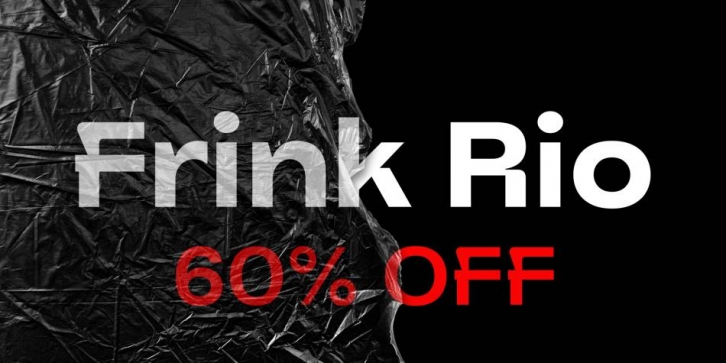
Frink Rio is a sans serif font family. This typeface has eighteen styles and was published by Brenners Template.
Frink Rio Modren Grotesk Font Family
It has evolved to converge wider and more trendy design needs. By designing the thin style vertical stem value as 10pt, the contrast between individual styles is ensured. Great care has been taken to ensure that the characteristics of individual Glyphs are well reflected in the each style. Extended Cyrillic language support will help make this font family more universal. And the support of various OpenType Features will respond to the designer’s coverage in a variety of ways.
Some Features
- 9Weights, 18Styles
- Italics
- 831Glyphs
- Extended Latin, Extended Cyrillic Language Support
OpenType Features
- Ligatures - fi, fl
- Small Caps (from lowercases)
- Ordinals (1st. 2nd. 3rd, 4~9th)
- Oldstyle Figures
- Tabular Figures
- Fractions
- Scientific Inferiors
- Superscrpt (lowercases. numbers)
· Frink Rio Thin
· Frink Rio Thin Italic
· Frink Rio Extra Light
· Frink Rio Extra Light Italic
· Frink Rio Light
· Frink Rio Light Italic
· Frink Rio Regular
· Frink Rio Italic
· Frink Rio Medium
· Frink Rio Medium Italic
· Frink Rio Semi Bold
· Frink Rio Semi Bold Italic
· Frink Rio Bold
· Frink Rio Bold Italic
· Frink Rio Extra Bold
· Frink Rio Extra Bold Italic
· Frink Rio Black
· Frink Rio Black Italic